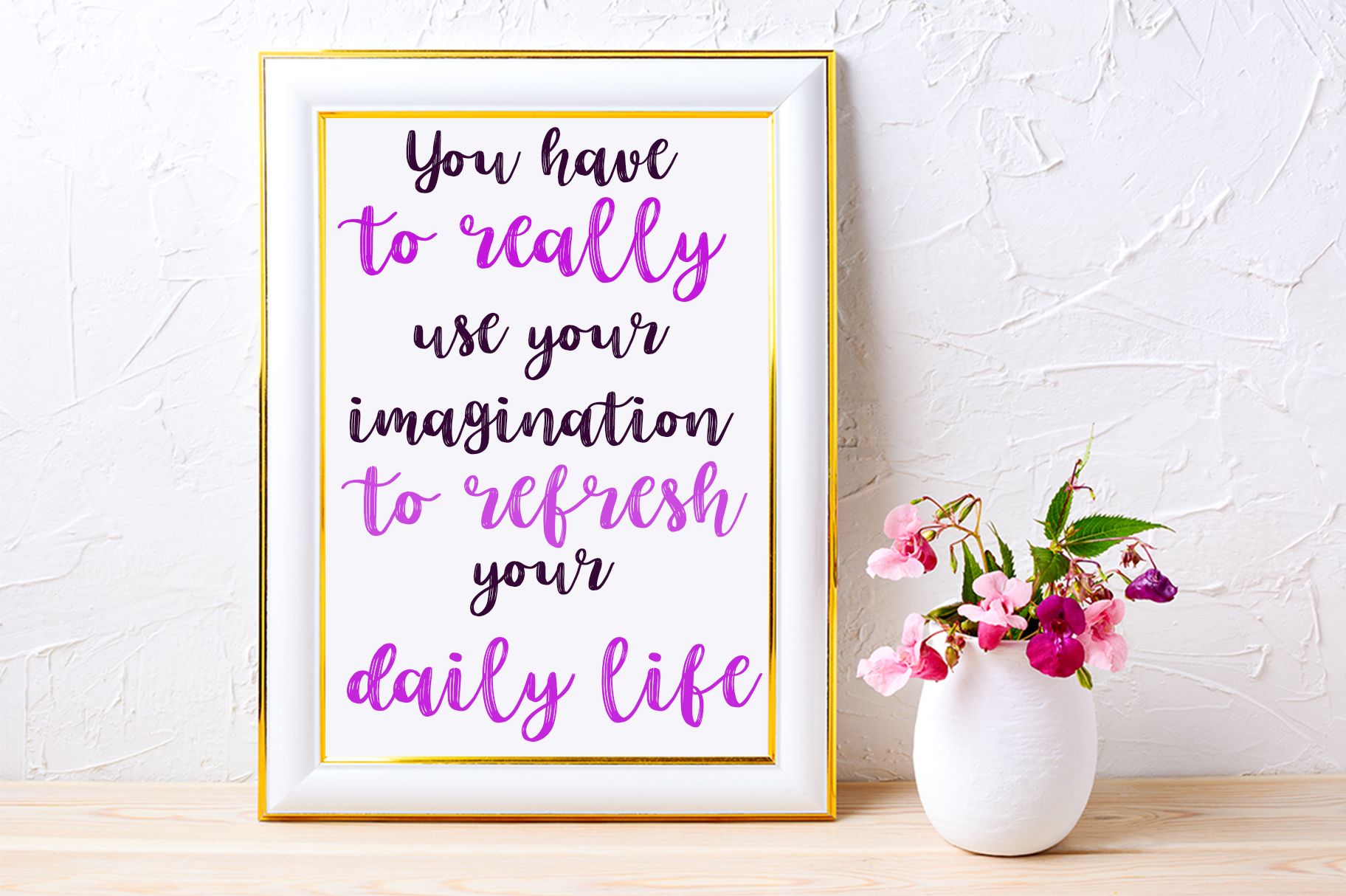
Love Purple Font
Love Purple is an incredibly lovely and sweet handwritten font with a magical twist. Use it to turn any design project into a standout!
Love Purple is perfect for branding projects, logo, wedding designs, social media posts, advertisements, product packaging, product designs, label, photography, watermark, invitation, stationery and any projects that need handwriting taste
- Tons of glyphs
- Ligature